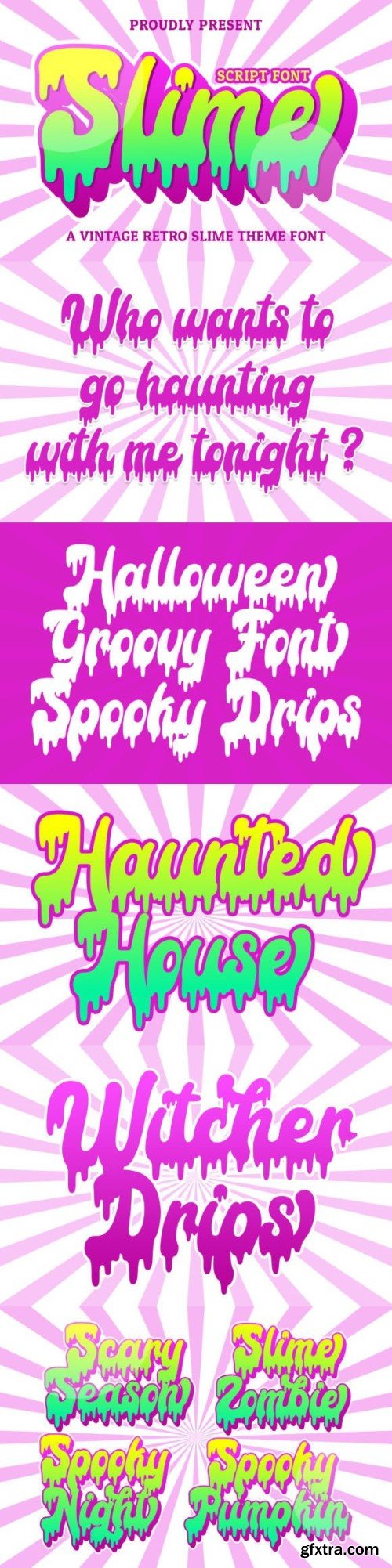
螺旋体字体
Slime Script is a cool, vintage-style script Bold font. Use it to add that special retro and slime touch to any design idea! It can be used for logos, branding, invitations, stationery, wedding designs, social media posts, and much more!